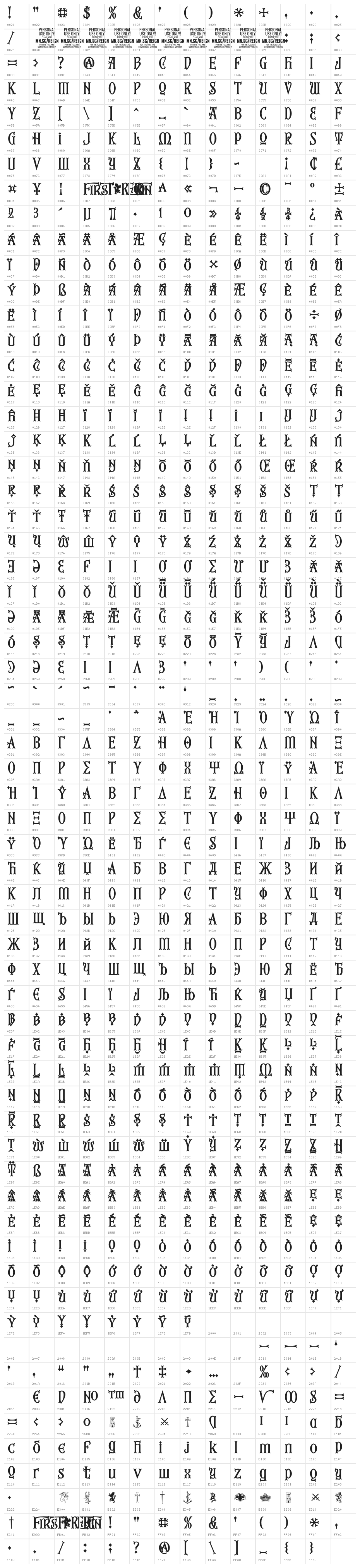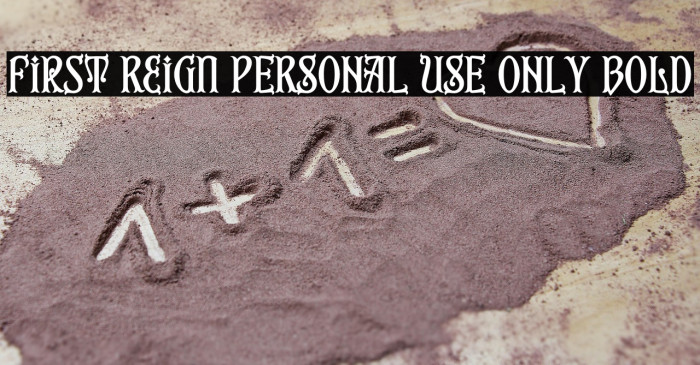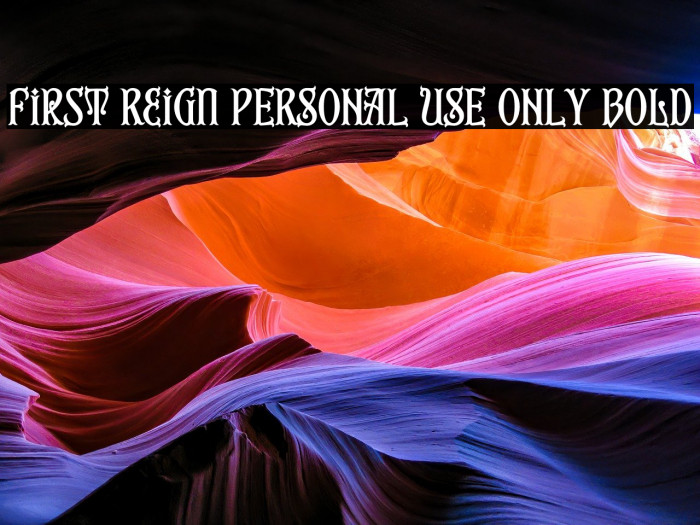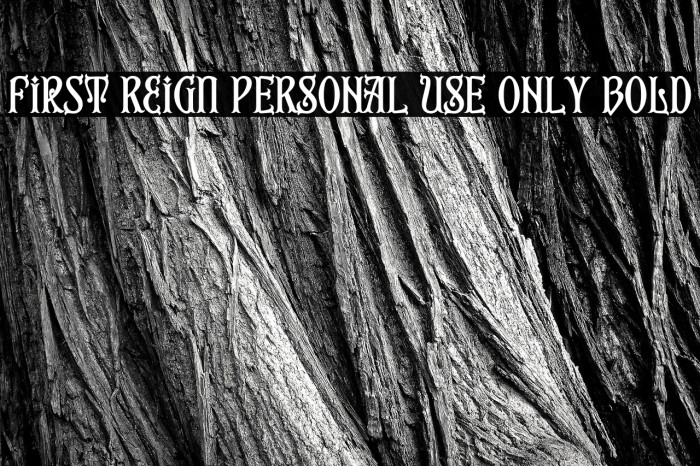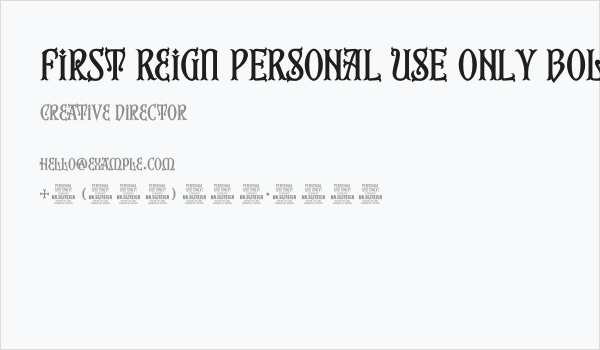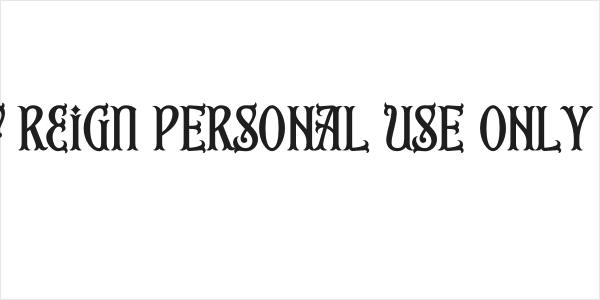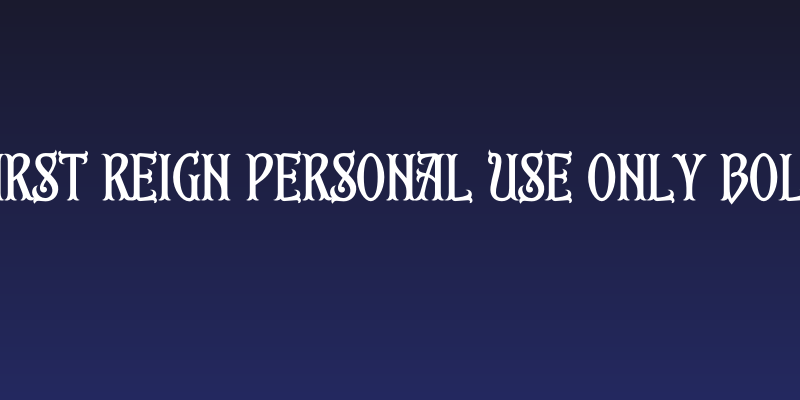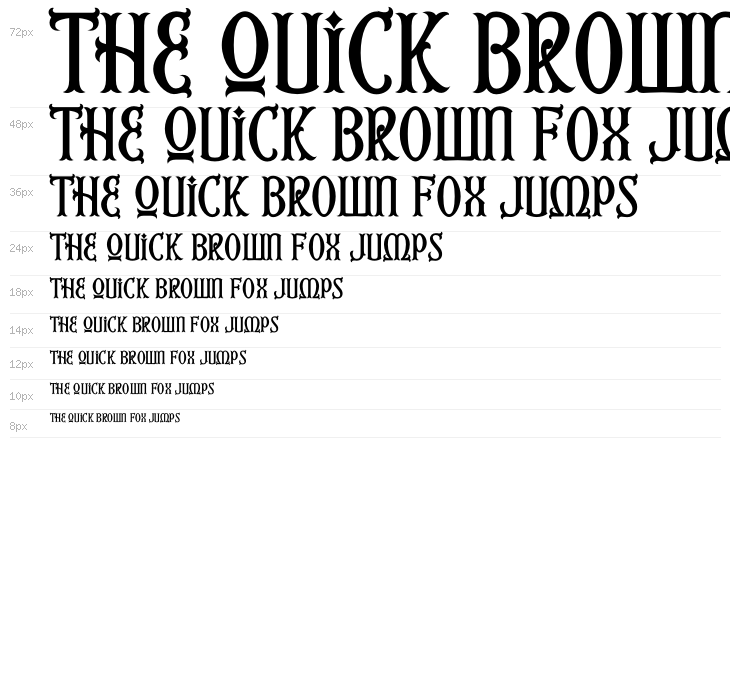
First Reign PERSONAL USE ONLY Bold Font
First Reign PERSONAL USE ONLY Bold Description
This font features a bold and dramatic style with intricate, decorative elements that evoke a sense of historical grandeur. The uppercase letters are characterized by sharp, angular serifs and elaborate flourishes, giving them a gothic and medieval appearance. The lowercase letters maintain the same ornate style, ensuring consistency throughout the typeface. The numbers and special characters are equally detailed, making them suitable for eye-catching designs. The overall aesthetic is both regal and commanding, making it ideal for projects that require a touch of elegance and authority.
| Overall Style | Gothic, Medieval, Decorative |
| Proposed Projects | Ideal for use in branding, posters, book covers, and any design requiring a historical or dramatic flair. |